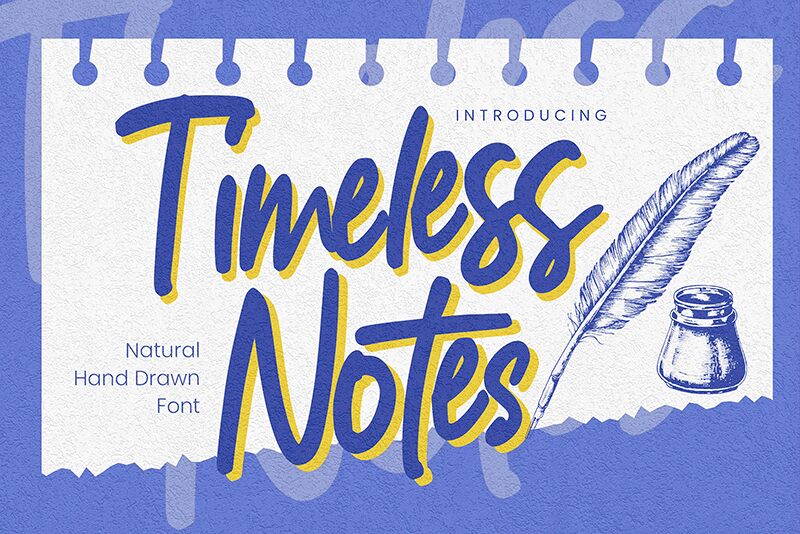
Timeless Notes
Timeless Notes, crafted by the skilled hands of Gassstype, is a semi-light handwritten font that breathes life into every word. Embodying modern style with the fluidity of impromptu script, this font brings a touch of drama to any design. Its natural hand-drawn aesthetic is perfect for an array of creative endeavors-from the finesse required for elegant labels to the boldness demanded by eye-catching posters.
The versatility of Timeless Notes lies in its textured finish and authentic charm, adding a layer of depth and sophistication. Whether you're looking to enhance branding materials or create memorable greeting cards, this font ensures your projects look contemporary, genuine, and engaging. Plus, with OpenType features like ligatures at your fingertips, Timeless Notes invites you to craft messages that truly stand out. Dive into the dynamic world of design possibilities with Timeless Notes-a font that makes each creation an enduring masterpiece.